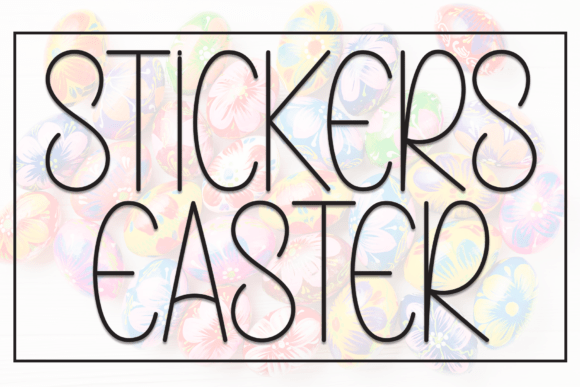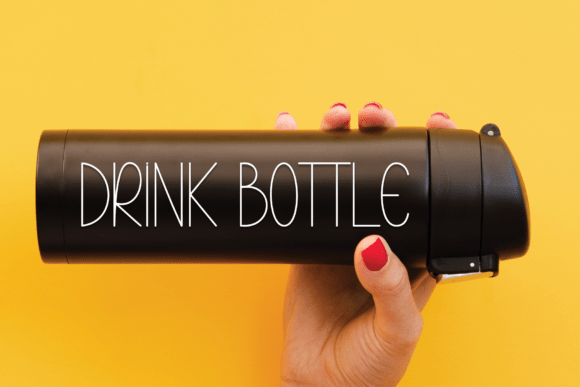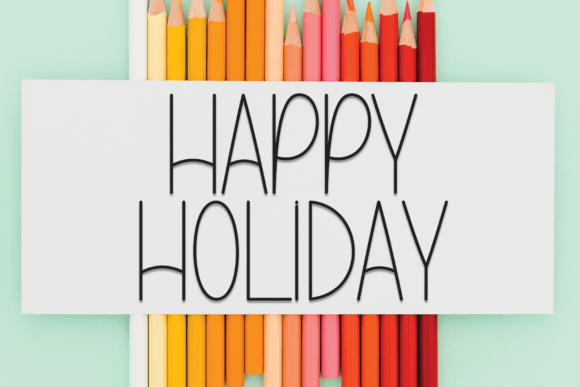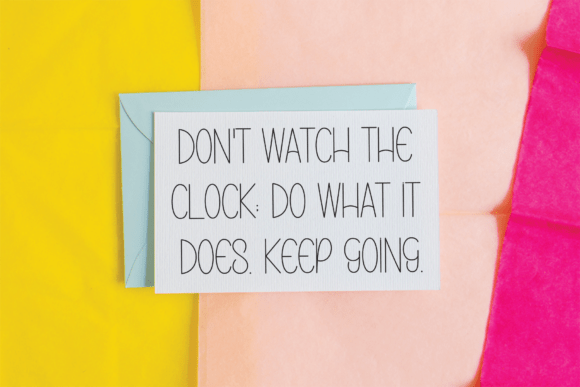
Stickers Easter Font
About the Stickers Easter Font
Explore the possibilities with Stickers Easter Font, a font that offers both beauty and functionality. Stickers Easter is a casual and neat display font that radiates a fresh, friendly vibe. With clean lines and a relaxed structure, it’s perfect for packaging, posters, and social media graphics. The approachable design adds charm and clarity to projects while maintaining a polished appearance.
Stickers Easter Font Usage Examples